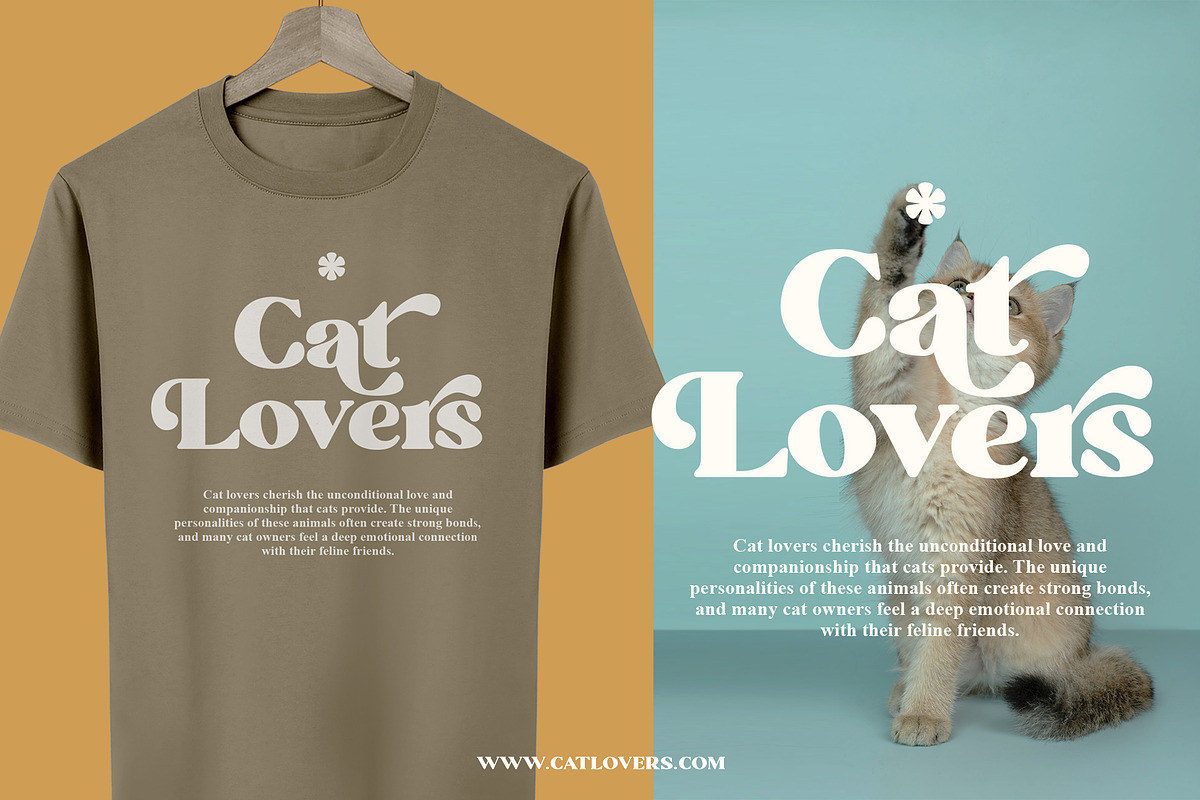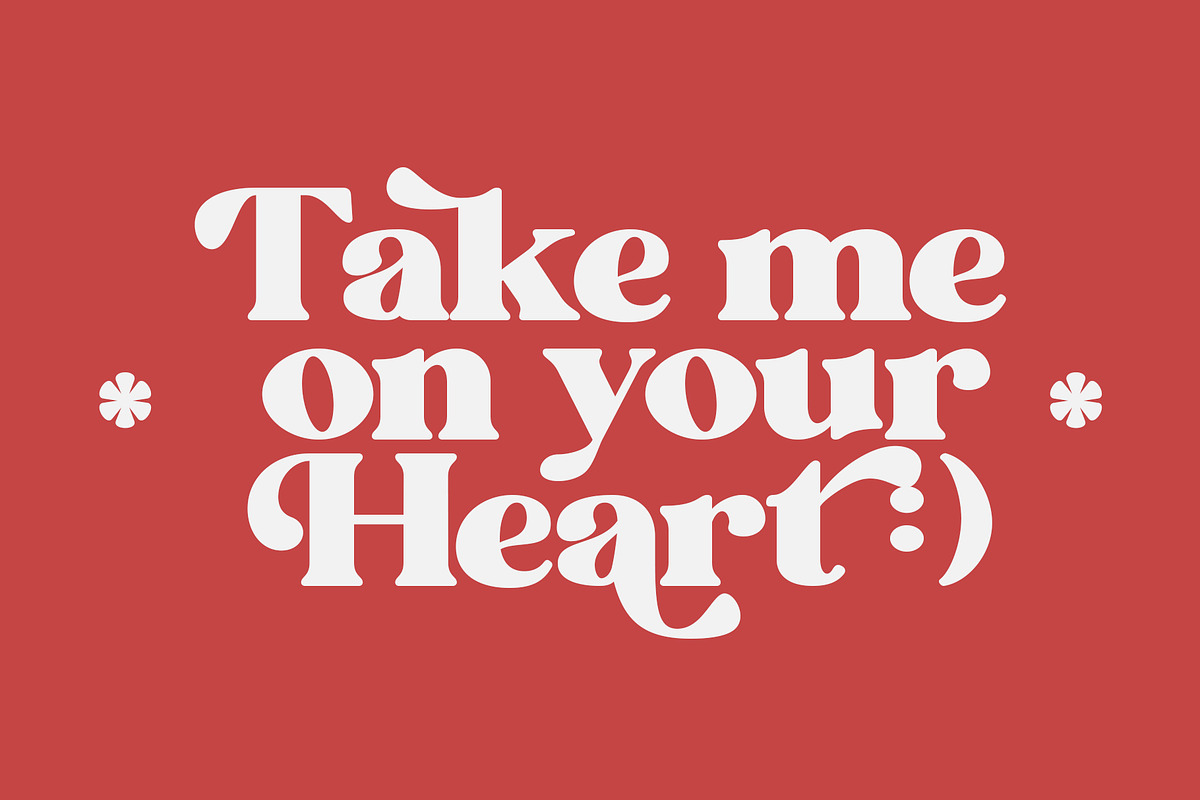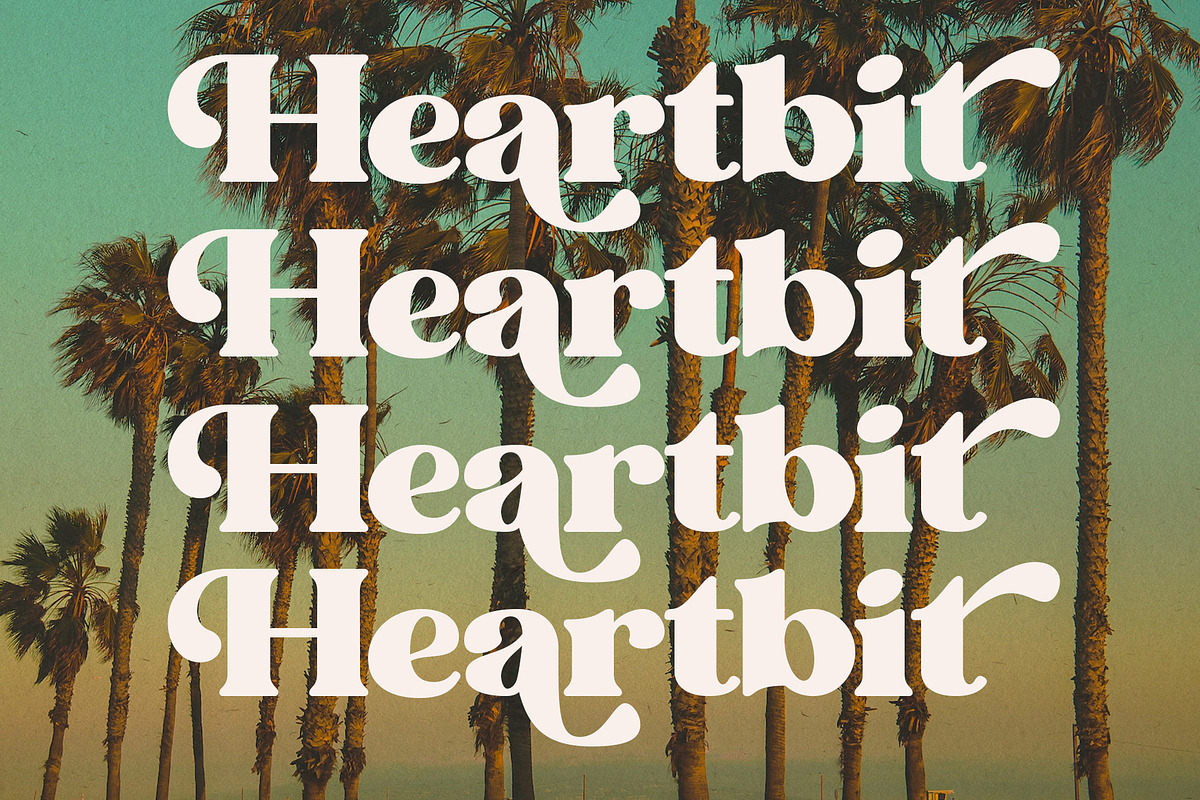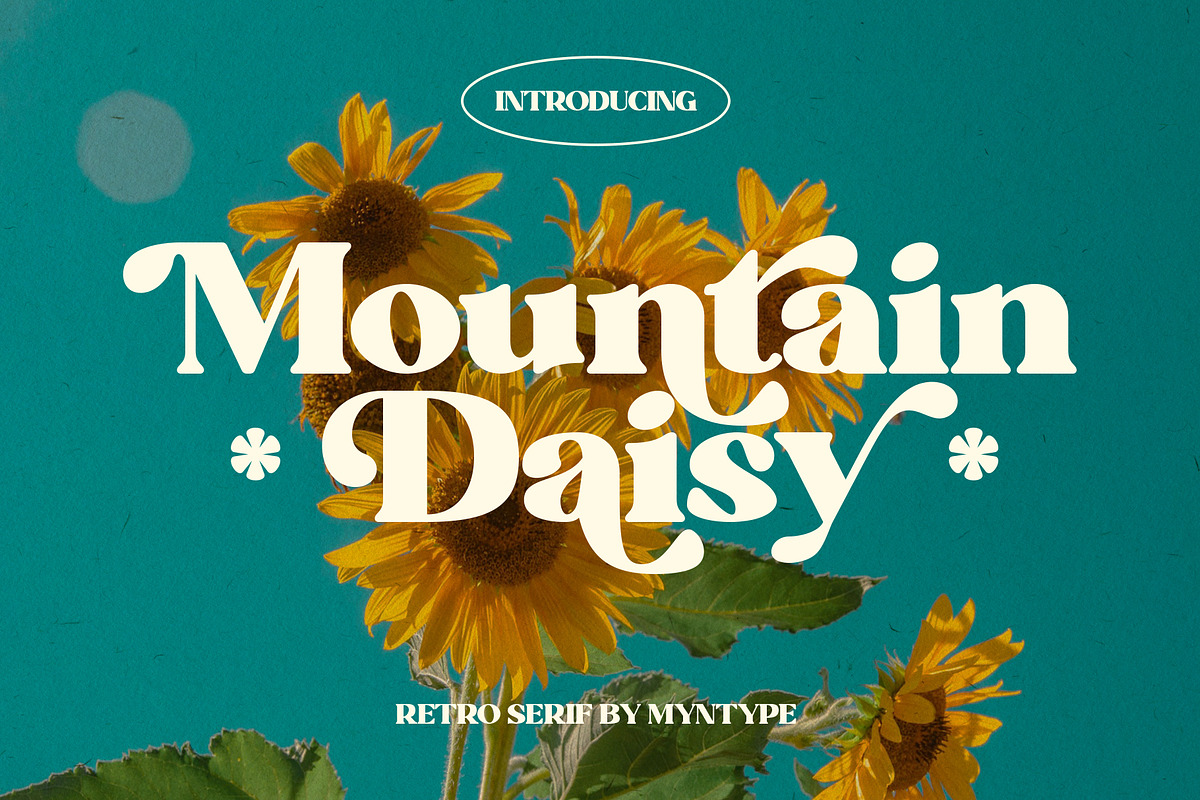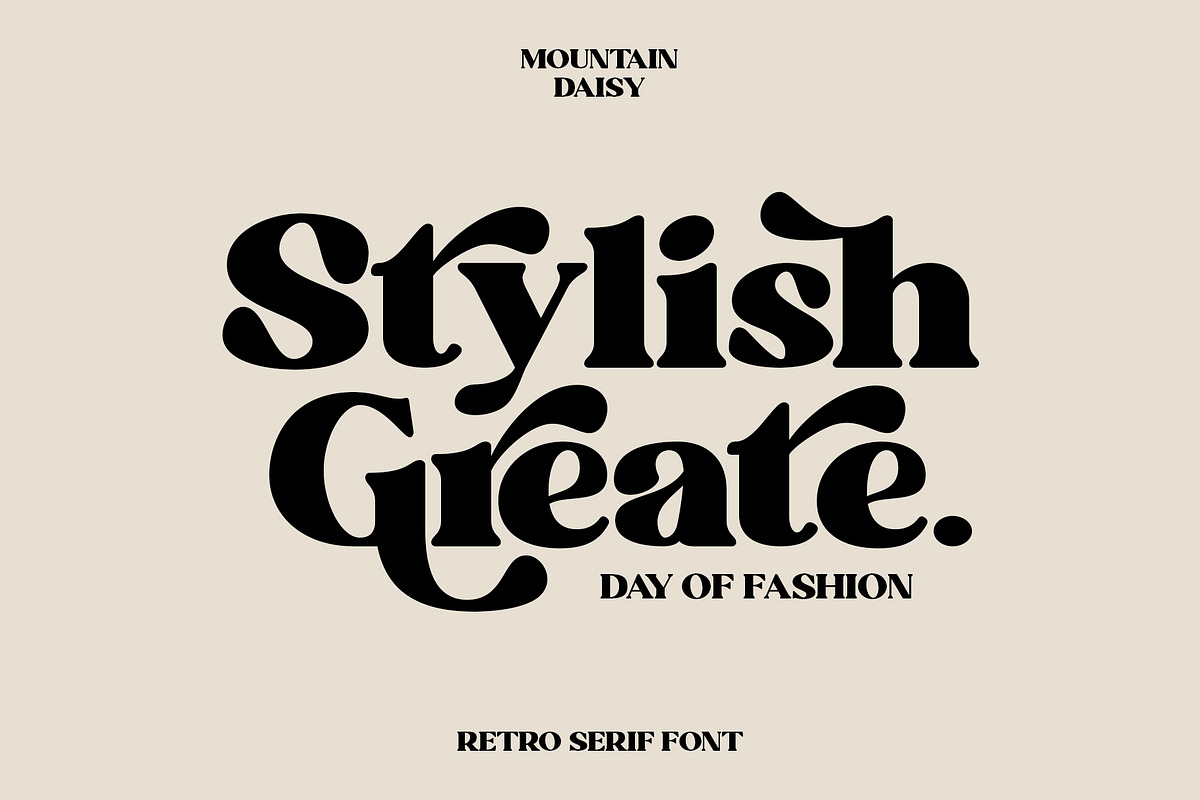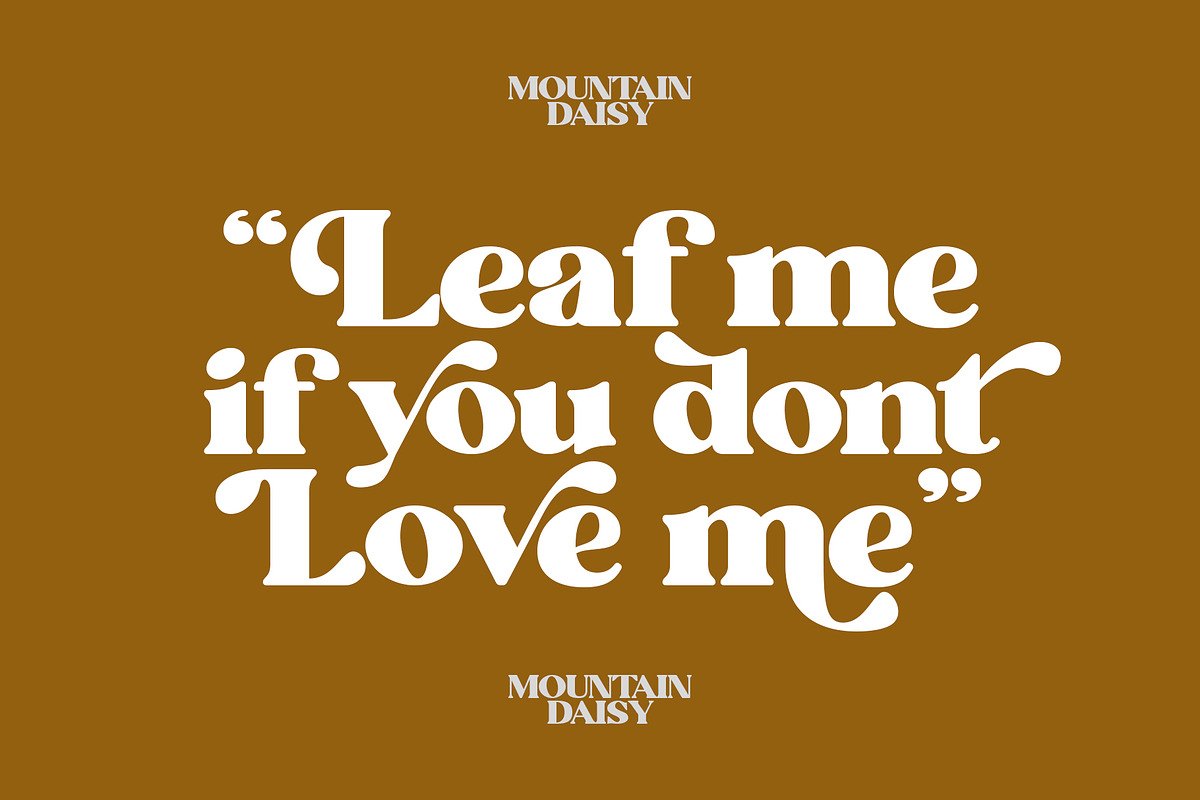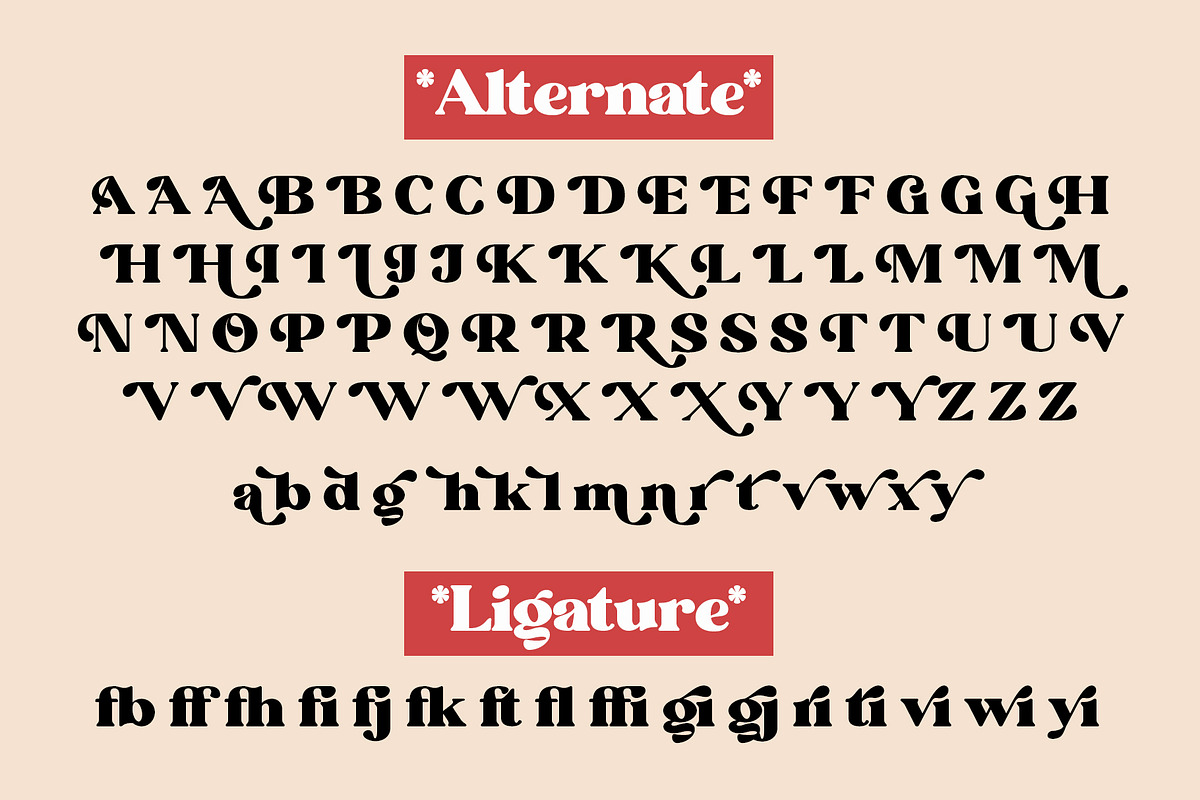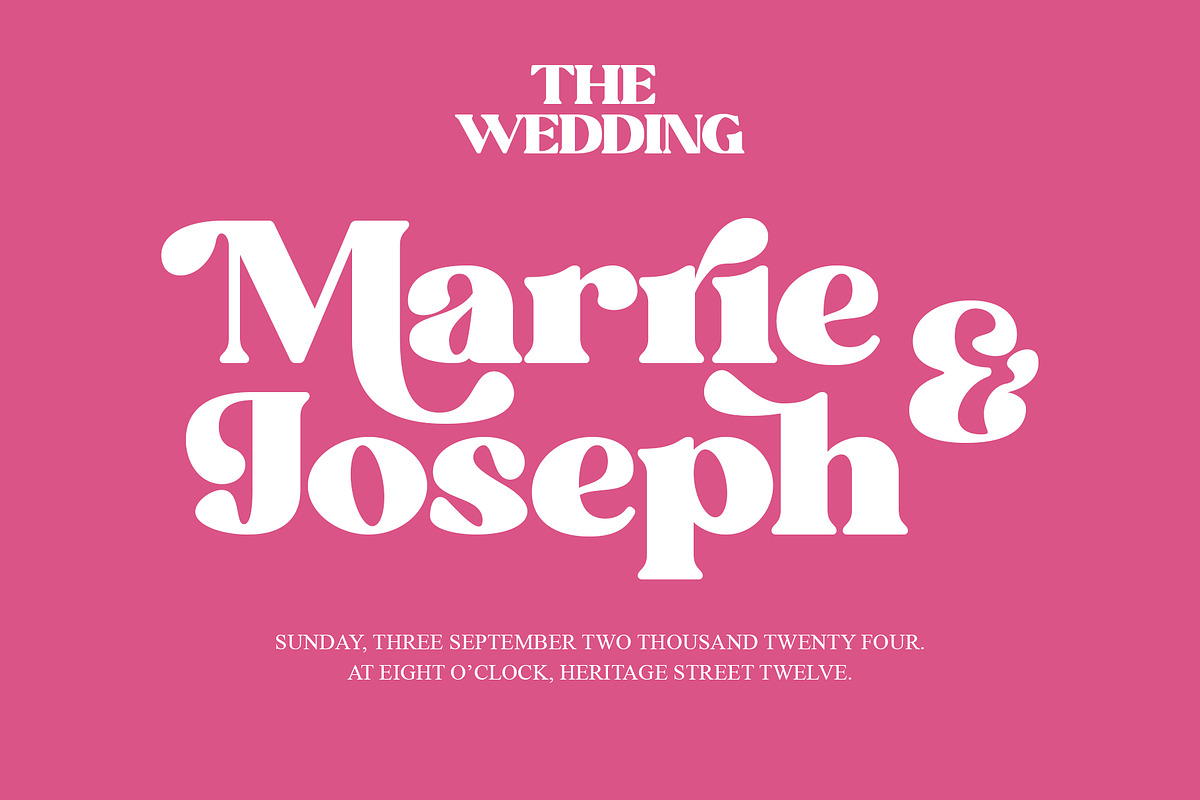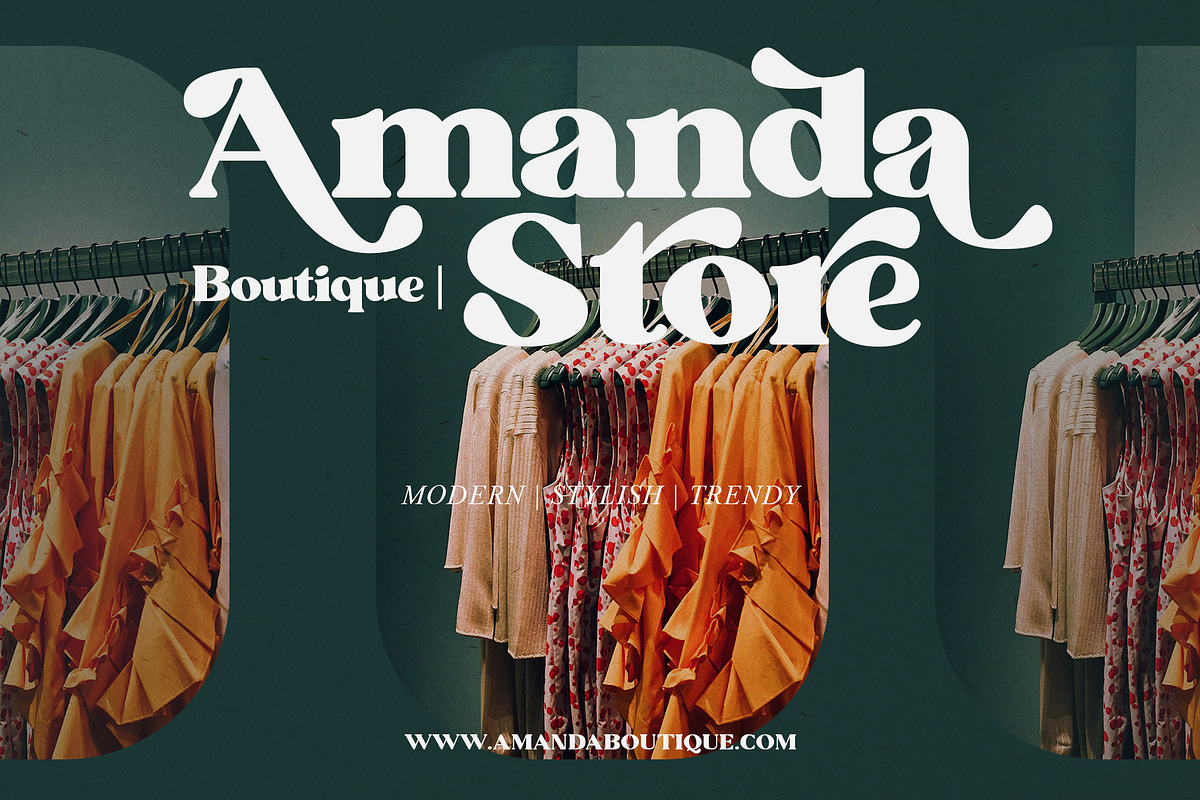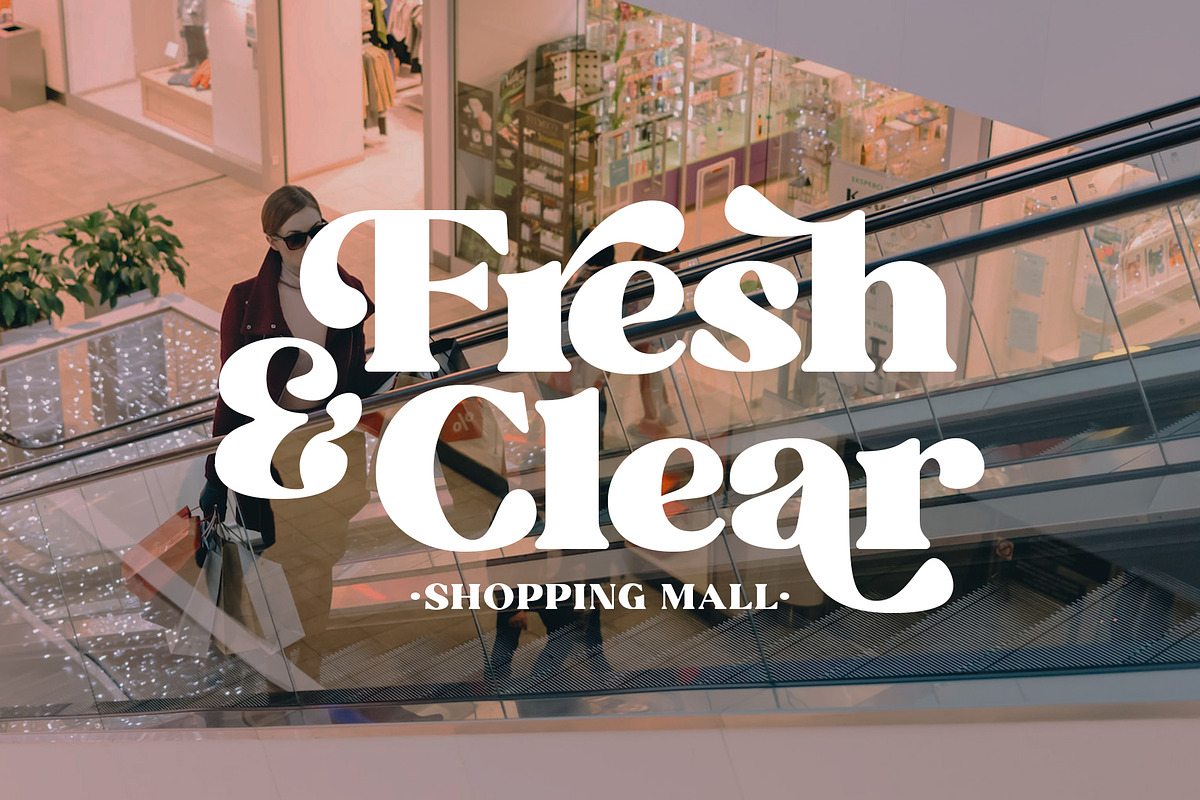
Mountain Daisy - Stylish Serif
Mountain Daisy is retro serif font, inspired by a typeface that embodies the characteristics and aesthetics of typography styles from past eras, from the early to mid-20th century.
This font include decorative elements with the uppercase, lowercase, and ligatures which add flair and uniqueness to the typography. This great for titles, logos, quote, packaging, headings, or any design to make your awesome project.